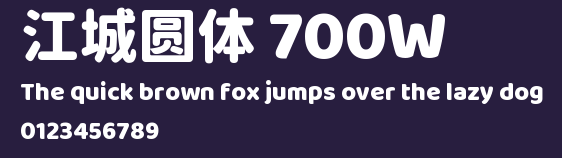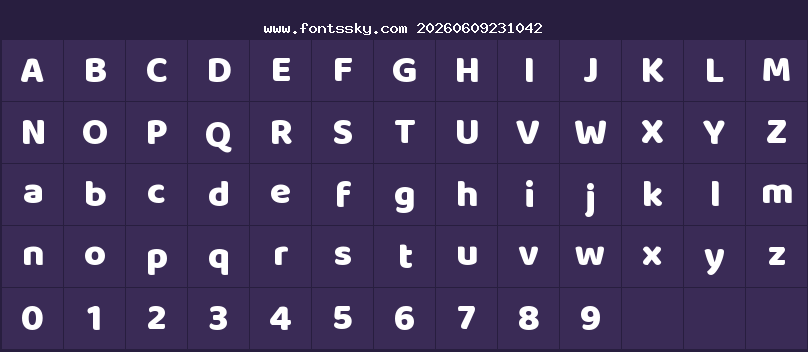
江城圆体 700W Preview
• Font Name: 江城圆体 700W
• Font ID: JiangChengYuanTi-700W:Version 3.6
• Full Font Name: 江城圆体 700W
• Version: Version 3.6 2021/10/22
• PostScript Name: JiangChengYuanTi-700W
• Character Count: 24518
• Designer: LiuPeng
About 江城圆体 700W.ttf
江城圆体 700W.ttf is a modern, elegant sans-serif font designed for ultimate readability and visual harmony. Perfect for branding, headlines, web design, and print materials.